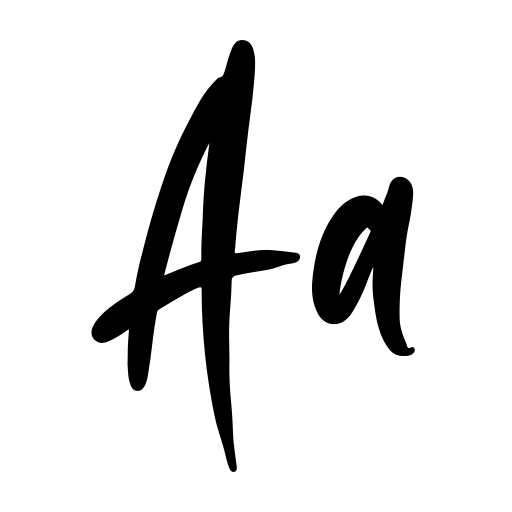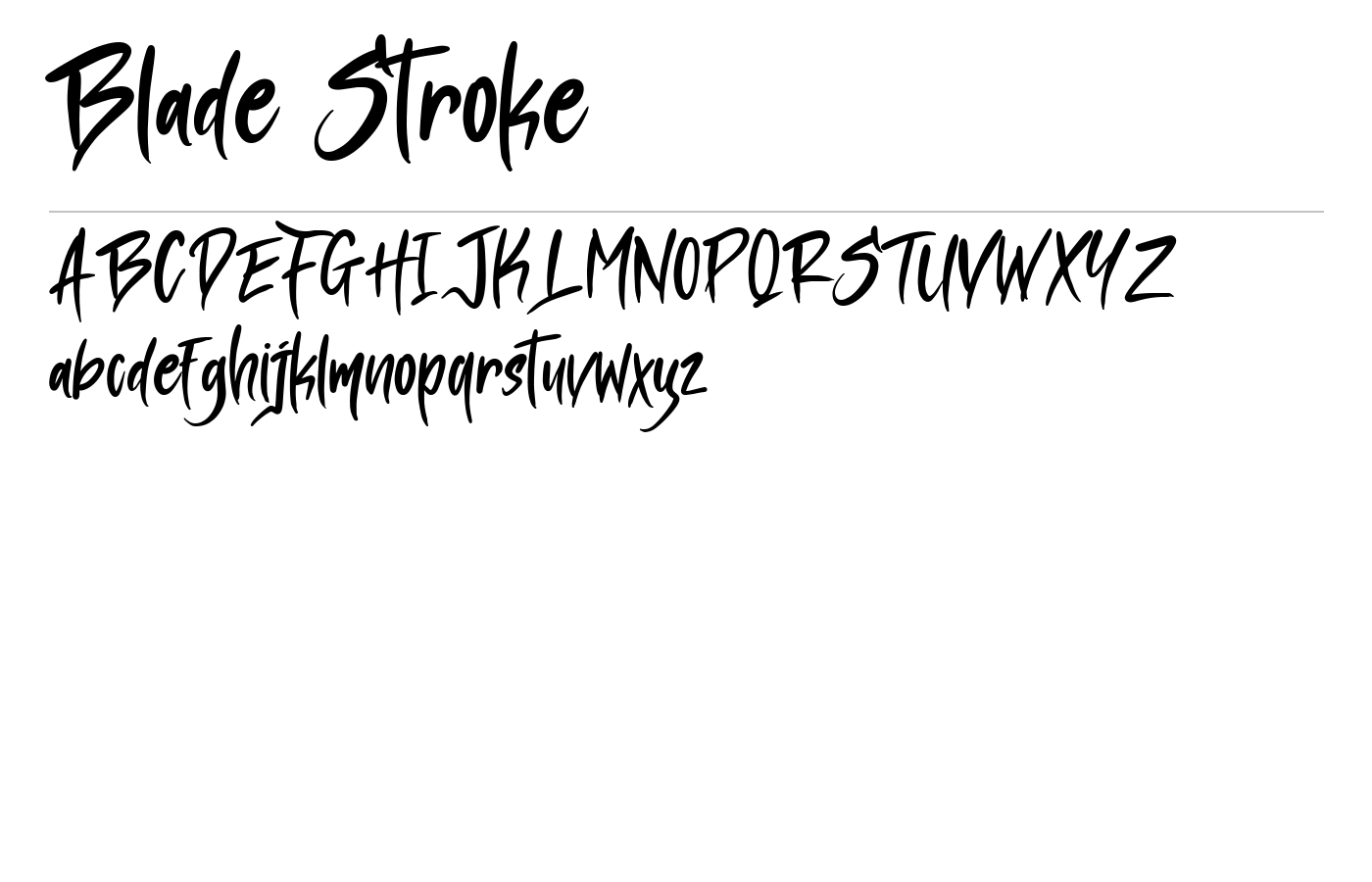
Blade Stroke is a lively, handwritten script font with dynamic, brush-like strokes that give it an energetic and casual feel. Its varying stroke width and slightly irregular letterforms convey a sense of spontaneity and personal touch, making it ideal for creative branding, posters, and informal designs that seek a bold, expressive vibe. This font works well for artistic projects and modern, stylish communications that want to emphasize individuality and flair.
Blade Stroke Font
About Blade Stroke Font
| Font family | Blade Stroke Font |
| Designer | Muhammad Sirojuddin - Jogjakarta 2019 |